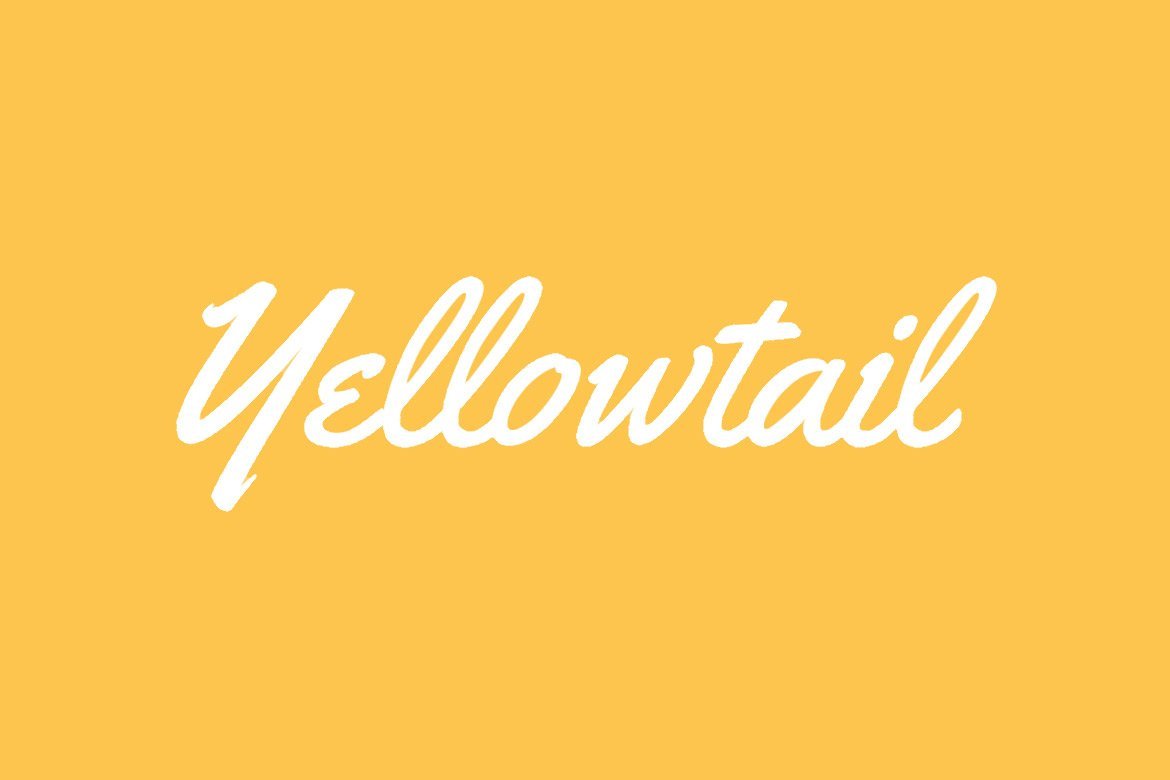
Free and Premium Quality Fonts - Best Premium FontsAstigmatic one eye typographic institute a fonts designing company is taking the charge for design it and they release it for the first time in 2013. The yellowtail font has been downloaded 213884 times. Explore yellowtail available at adobe fonts.
Yellowtail font free download yellowtail font is an amazing handwritten font family available in regular styles.
Yellowtail font free download. 18 7 2011 yellowtail version 001001 yellowtail. Download and install the yellowtail free font family by astigmatic as well as test drive and see a complete character set. Released in 2011 by astigmatic one eye typographic institute and licensed for personal and commercial use. Its mix of connecting and non connecting letterforms lend to its un.
Download free font yellowtail by astigmatic one eye typographic institute from category calligraphy. Download yellowtail font free for commercial use yellowtail is an old school flavored flat brush script typeface of medium weight. Free download of yellowtail font. Making the web more beautiful fast and open through great typography.